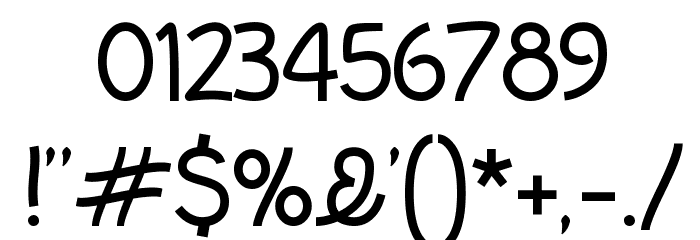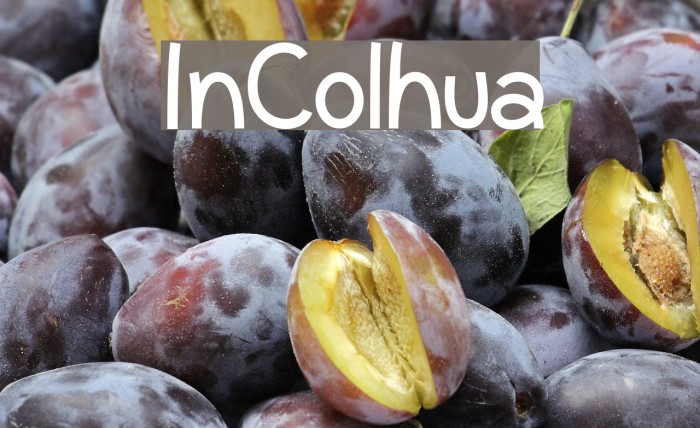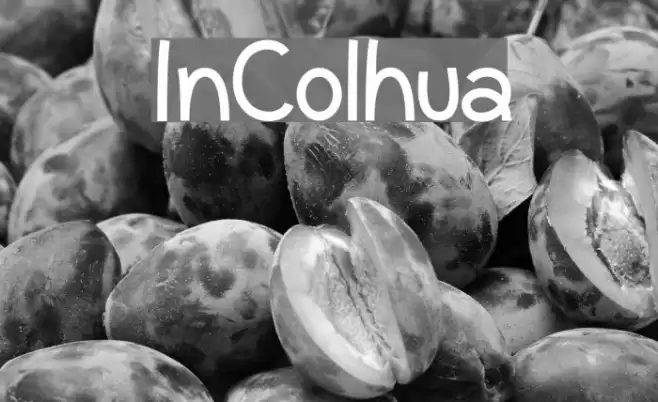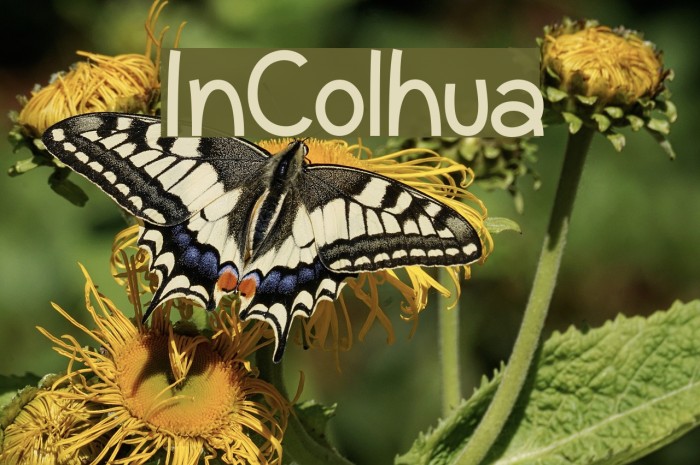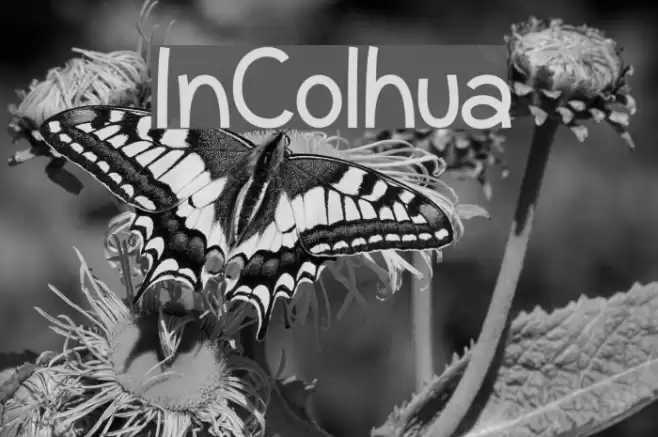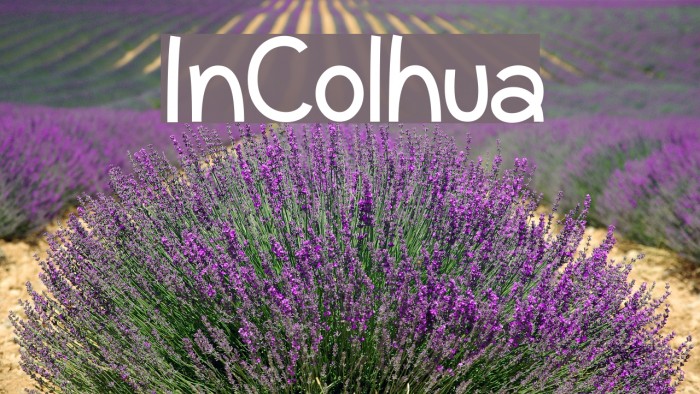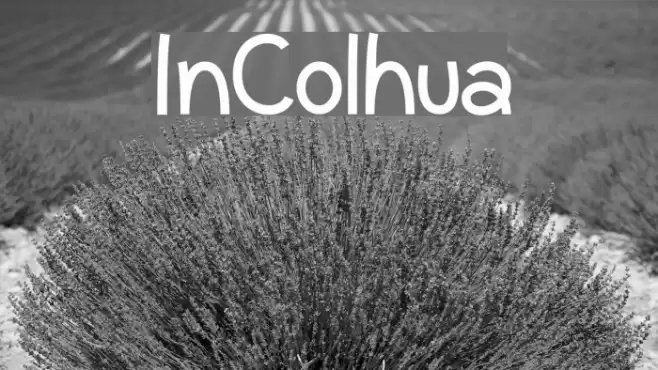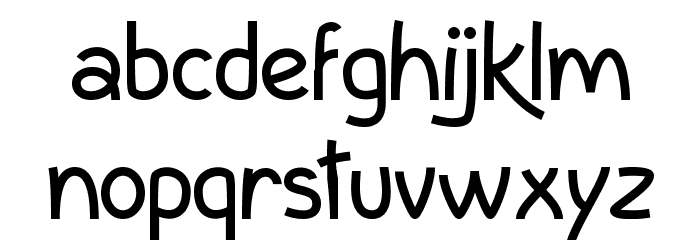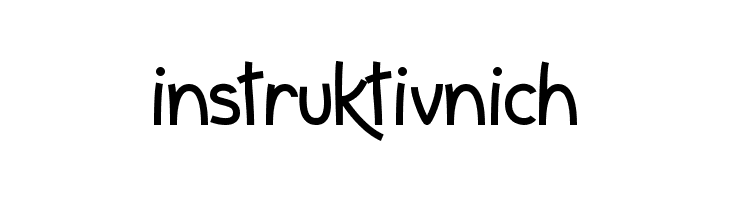
InColhua Font
InColhua Description
This font features a playful and casual style with rounded edges and a slightly irregular baseline, giving it a hand-drawn appearance. The uppercase letters are bold and prominent, while the lowercase letters maintain a consistent flow, enhancing readability. Numbers and special characters are designed to match the overall whimsical aesthetic, making it suitable for informal and creative projects. The font's unique character shapes and moderate spacing contribute to its friendly and approachable look, ideal for adding a touch of personality to any design.
| Proposed Projects | Ideal for children's books, greeting cards, playful branding, and creative posters. |